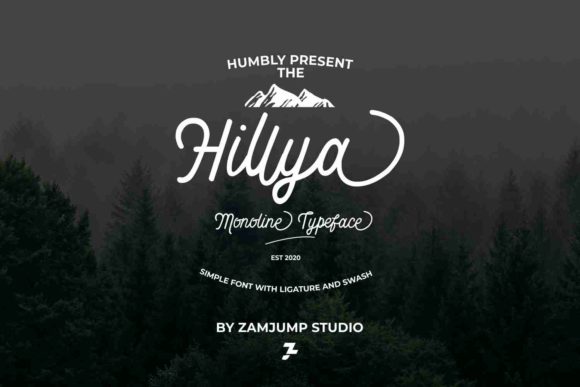
Unleash your creativity with Hillya Font, the ultimate script font inspired by the charm of vintage typography. Its casual and natural style brings a touch of elegance to any project, making it perfect for clothing brands, logos, social media posts, and posters that demand attention.
Immerse yourself in the beauty of Hillya's monoline strokes, crafted with precision to convey a sense of authenticity and timeless appeal. Witness the harmonious blend of classic and contemporary elements, creating a font that resonates with both tradition and innovation.
With Hillya Font, you can effortlessly elevate your designs to new heights. Its versatility knows no bounds, allowing you to effortlessly express your ideas in a captivating and impactful manner. Experience the joy of seamless creativity as Hillya's graceful curves and elegant lines transform your words into visual masterpieces.
Don't settle for ordinary fonts that blend into the background. Embrace the power of Hillya Font and watch your designs come alive with captivating charm and distinction. Let your imagination soar as you explore the endless possibilities that await you with this remarkable font.
Seize the opportunity to make a lasting impression with Hillya Font. Its ability to evoke emotions and convey messages with clarity and style will leave a lasting impact on your audience. Unleash the full potential of your creativity and embark on a journey of self-expression like never before.
Hillya Font is more than just a font; it's an invitation to embark on a creative adventure where your ideas take center stage. Its versatility and timeless appeal make it the perfect companion for artists, designers, and creative professionals seeking to leave an indelible mark on the world.